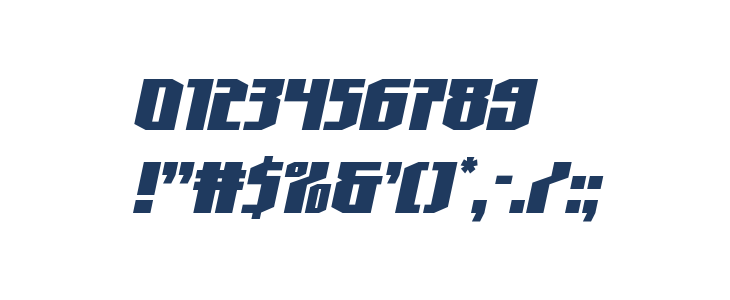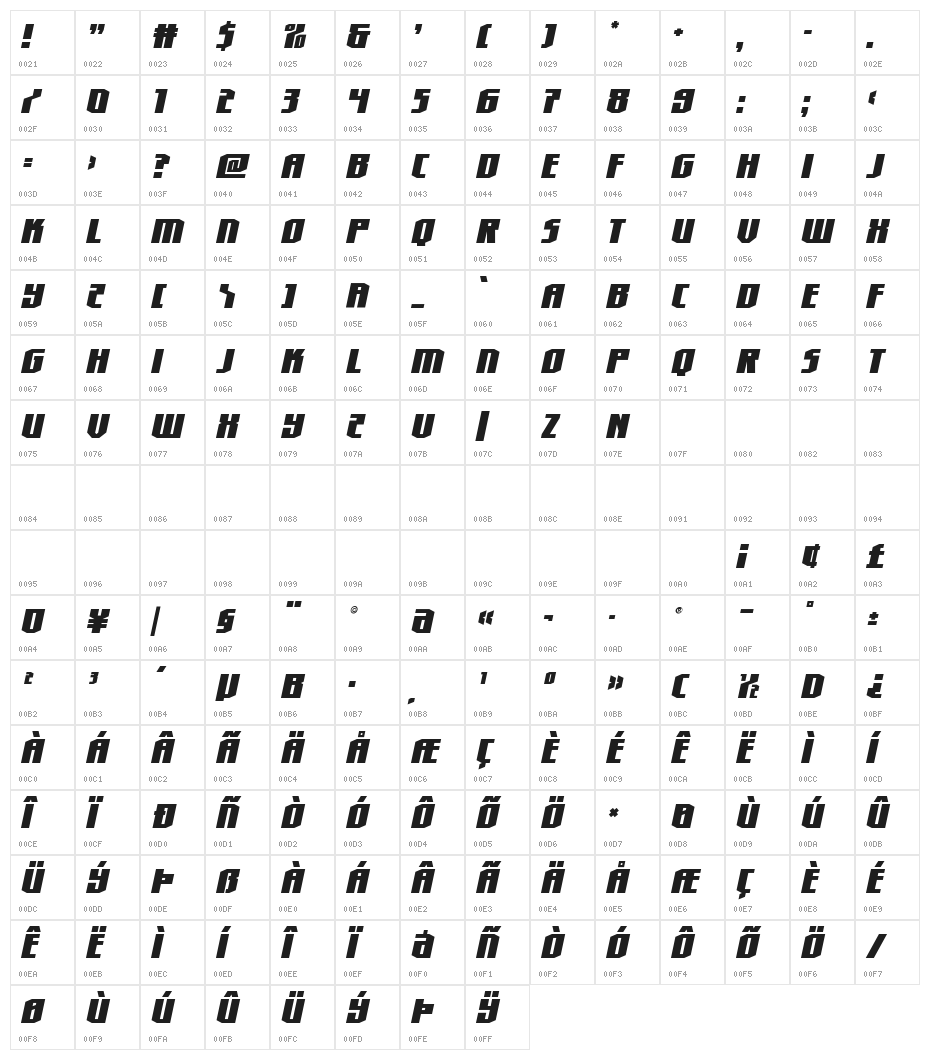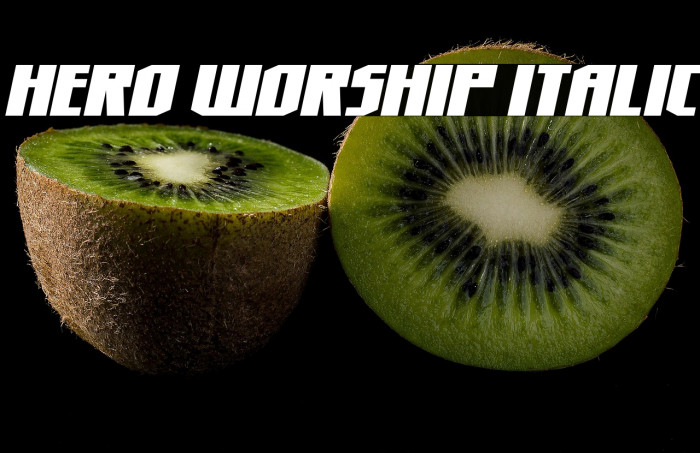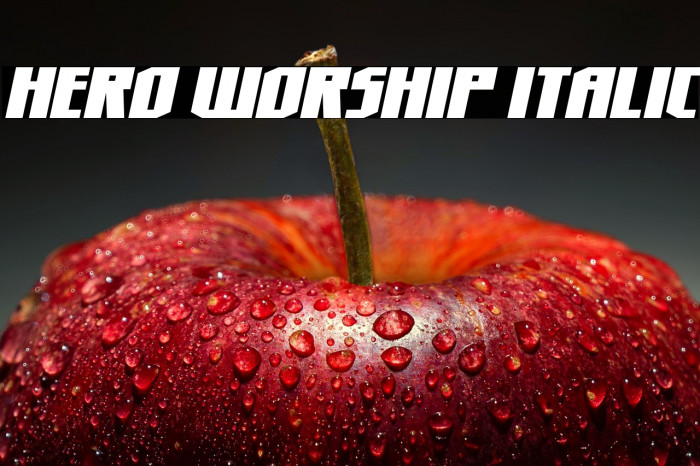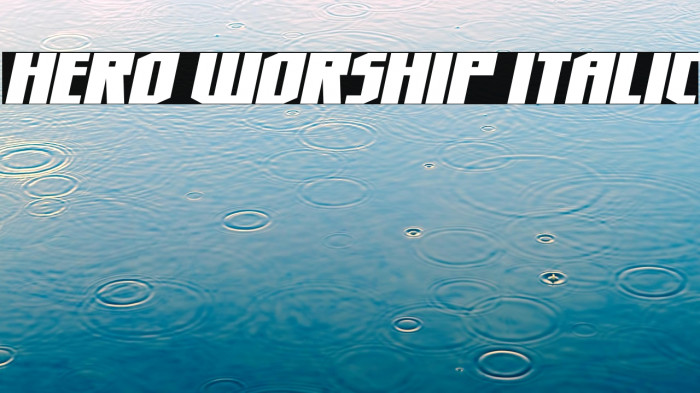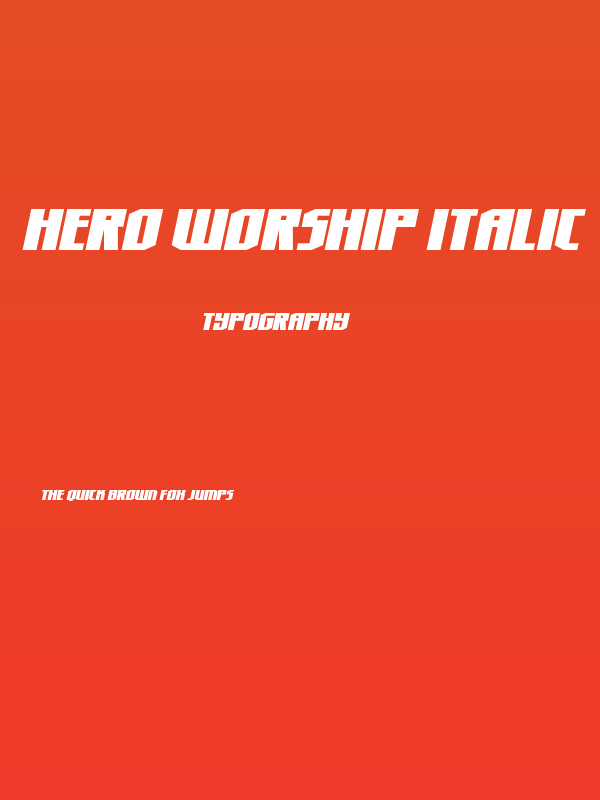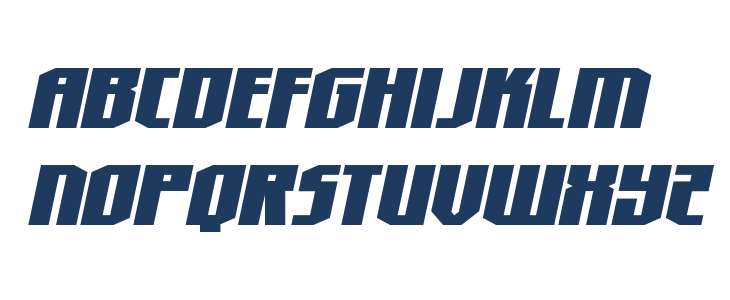
Hero Worship Italic Font
Hero Worship Italic Description
This font features a bold and dynamic design with a strong italic slant, giving it a sense of motion and energy. The characters are blocky and geometric, with sharp angles and a uniform thickness that conveys a sense of strength and stability. The uppercase and lowercase letters maintain a consistent style, while the numerals and special characters integrate seamlessly into the overall design. This font's boldness and angularity make it stand out, perfect for projects that require a strong visual impact.
| Proposed Projects | Ideal for sports branding, action movie posters, video game titles, and dynamic advertising campaigns. |